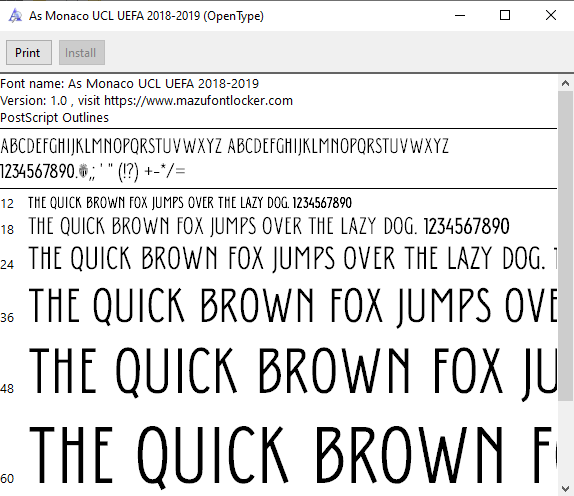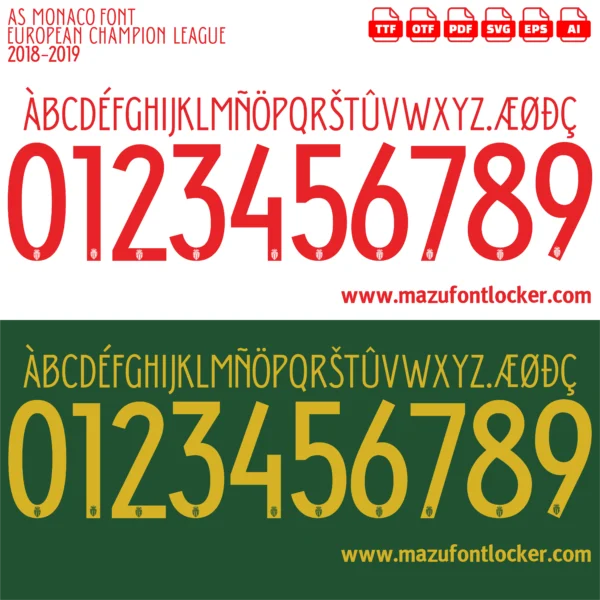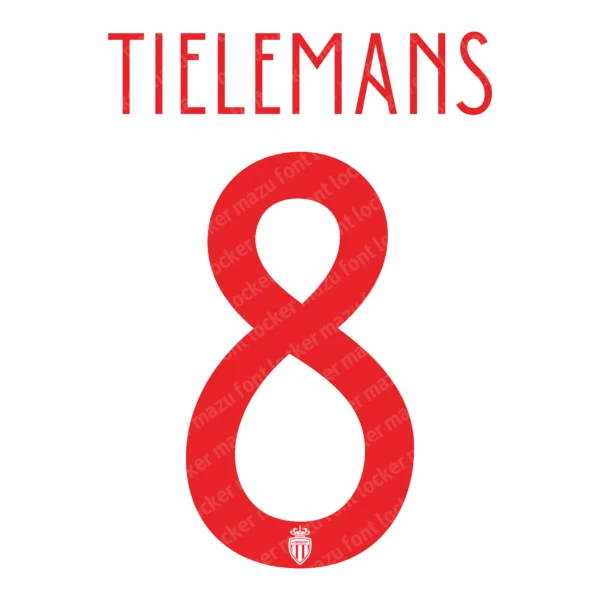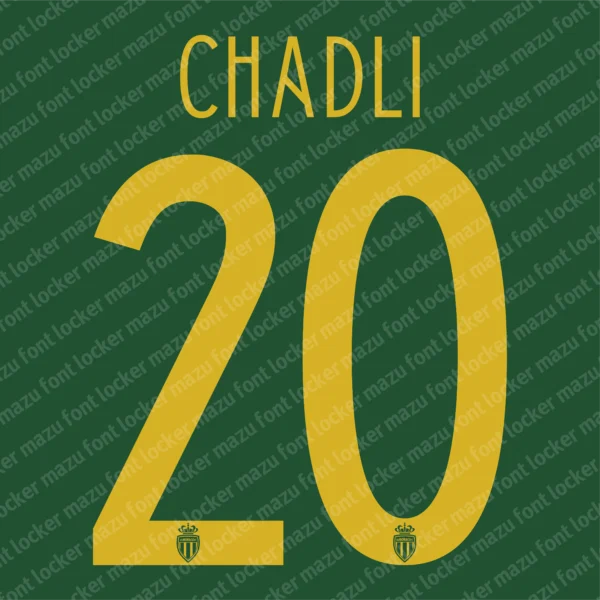
AS Monaco UCL 2018-2019 Font Vector – Stunning Rouge et Blanc Masterpiece
This font captures the sharp, commanding, and thunderous lettering that perfectly embodies AS Monaco’s iconic club identity, proud Riviera football heritage, never-back-down mentality, and raw European force — delivering unmatched authenticity, premium quality, volcanic energy, and elite continental dominance for professional jersey mockups, dynamic football graphics, premium sports branding, passionate fan creations, and high-end design projects.
AS Monaco UCL 2018-2019 Font Vector – Bold Modern Matchday Typeface
The AS Monaco UCL 2018-2019 Font Vector is a premium typeface that accurately recreates the distinctive match lettering used by AS Monaco during their 2018-2019 UEFA Champions League campaign. This high-quality vector font kit captures the bold, clean, and instantly recognizable typography that defined the visual identity of the Monegasque club on the European stage during that season.
Designed for professional designers, football enthusiasts, jersey collectors, and passionate AS Monaco fans, the AS Monaco UCL 2018-2019 Font Vector delivers exceptional authenticity for creating realistic jersey mockups, football merchandise, social media graphics, match posters, squad designs, and custom fan artwork. Every character has been carefully recreated to reflect the powerful and precise visual style that appeared on kits throughout that memorable European campaign.
This font stands out thanks to its precise vector construction and authentic club-inspired styling. Every letter and numeral has been meticulously recreated to match the distinctive football lettering aesthetic used by AS Monaco during their 2018-2019 UEFA Champions League journey.
Whether you’re producing professional football kit templates, custom jersey concepts, or eye-catching football content, the AS Monaco UCL 2018-2019 Font Vector delivers a genuine match-ready appearance inspired by the official typeface of one of France’s most stylish clubs on the European stage.
The lettering featured in the AS Monaco UCL 2018-2019 Font Vector combines clean geometric lines with bold modern proportions. The result is a premium and highly readable typeface that reflects AS Monaco’s contemporary visual identity, sharp professionalism, and the high-intensity atmosphere of UEFA Champions League football during the 2018-2019 season.
• Complete uppercase A–Z alphabet and numbers 0–9 in authentic AS Monaco UCL 2018-2019 inspired style
• Special AS Monaco badge glyph – Press the “:” (Colon) key to insert the club badge
AS Monaco UCL 2018-2019 Era
The 2018-2019 season marked another competitive chapter in AS Monaco’s European history, featuring group stage battles and the continued presence of the club on the UEFA Champions League stage. The distinctive matchday typography used during this campaign became closely associated with Monaco’s identity in Europe.
The AS Monaco UCL 2018-2019 Font Vector is an independently designed typeface package inspired by the official shirt lettering and visual identity associated with AS Monaco during the 2018-2019 UEFA Champions League season. It has been carefully recreated for football enthusiasts, graphic designers, collectors, jersey creators, and fans producing custom football concepts, digital artwork, and fan-made projects. Please note that this is a fan-made design resource and is not an official product of AS Monaco, Ligue 1, UEFA, or any associated organization.